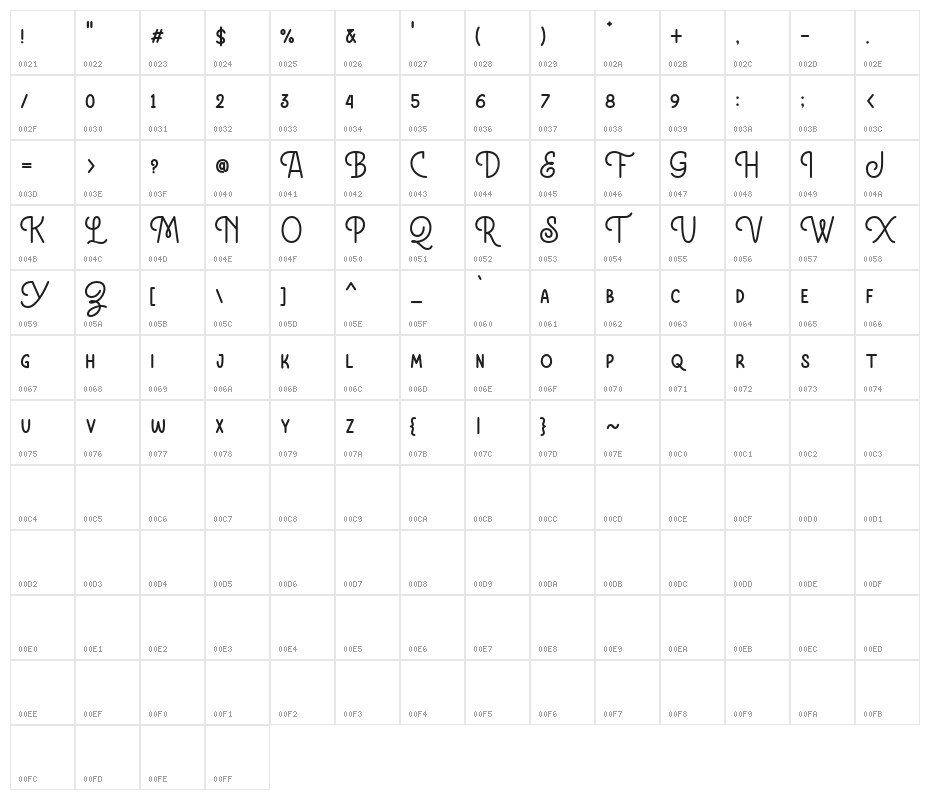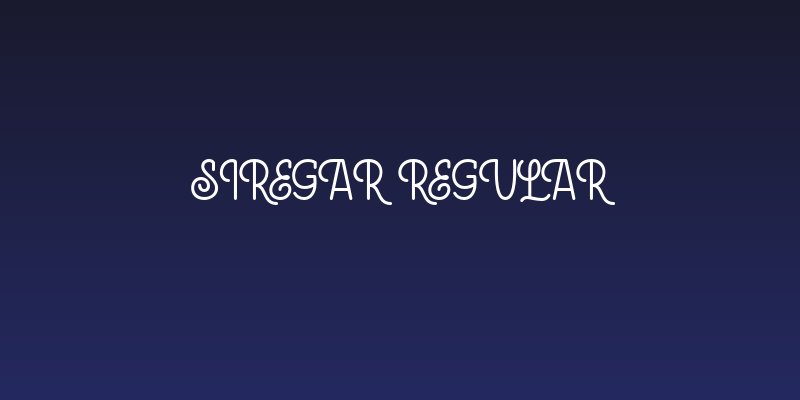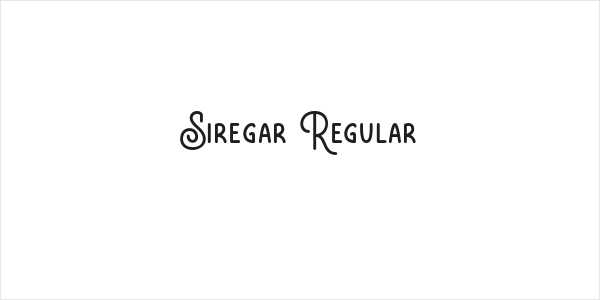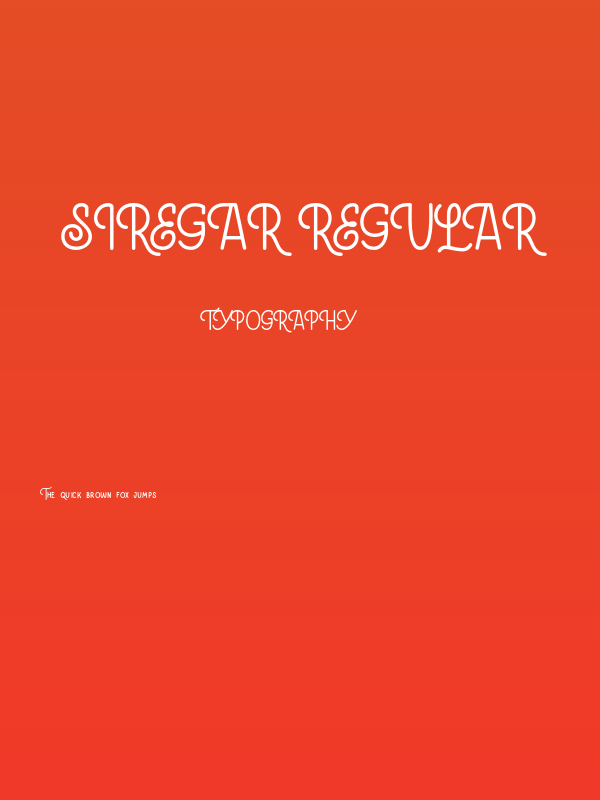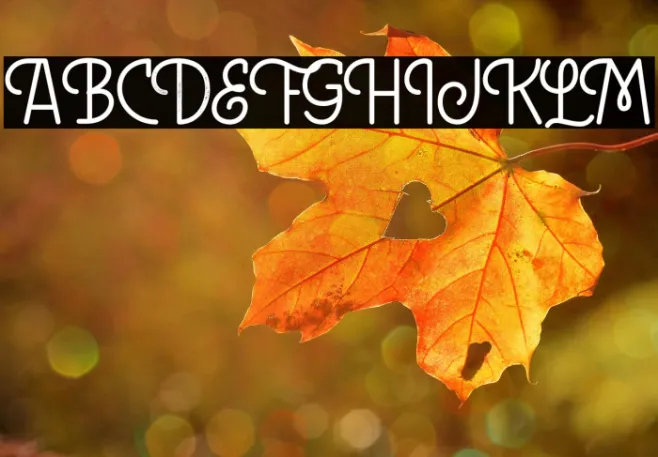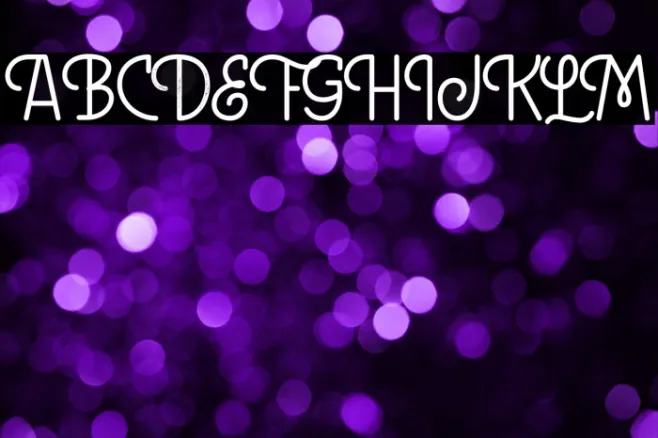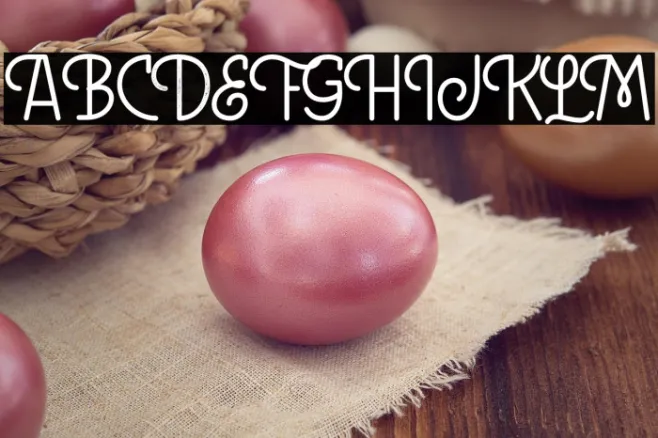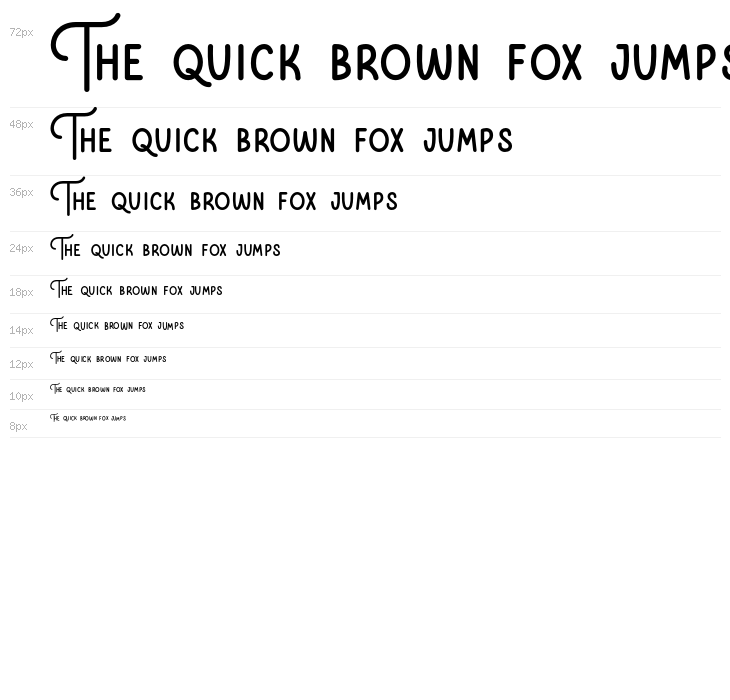
Siregar Regular Font
Siregar Regular Description
This font features a playful and artistic style with a mix of script and sans-serif elements. The uppercase letters exhibit a whimsical flair, characterized by flowing lines and decorative curls, particularly noticeable in letters like 'R' and 'Q'. The lowercase letters maintain a more straightforward, rounded appearance, offering a nice contrast to the ornate capitals. The numerals are bold and clear, ensuring readability. Special characters are creatively designed, maintaining the overall playful aesthetic. This font is versatile, suitable for projects that require a touch of elegance and creativity.